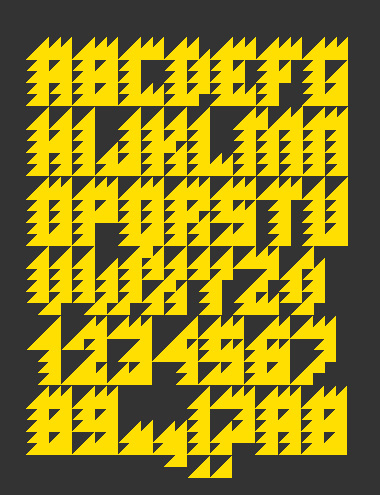
Gottheit
my first blackletter with fontstruct.
It´s curious how this typeface works with a very tight kerning and line height.
Very striking and yes, it is strangely readable :)
Very subtle and clever modulations, congrats.
Simple and modern, and freakily readable as a font. Just the way I like 'em.
Cool typeface! And surprisingly readable.
Cool concept. Nice execution. Readable at pixel size. 10/10.